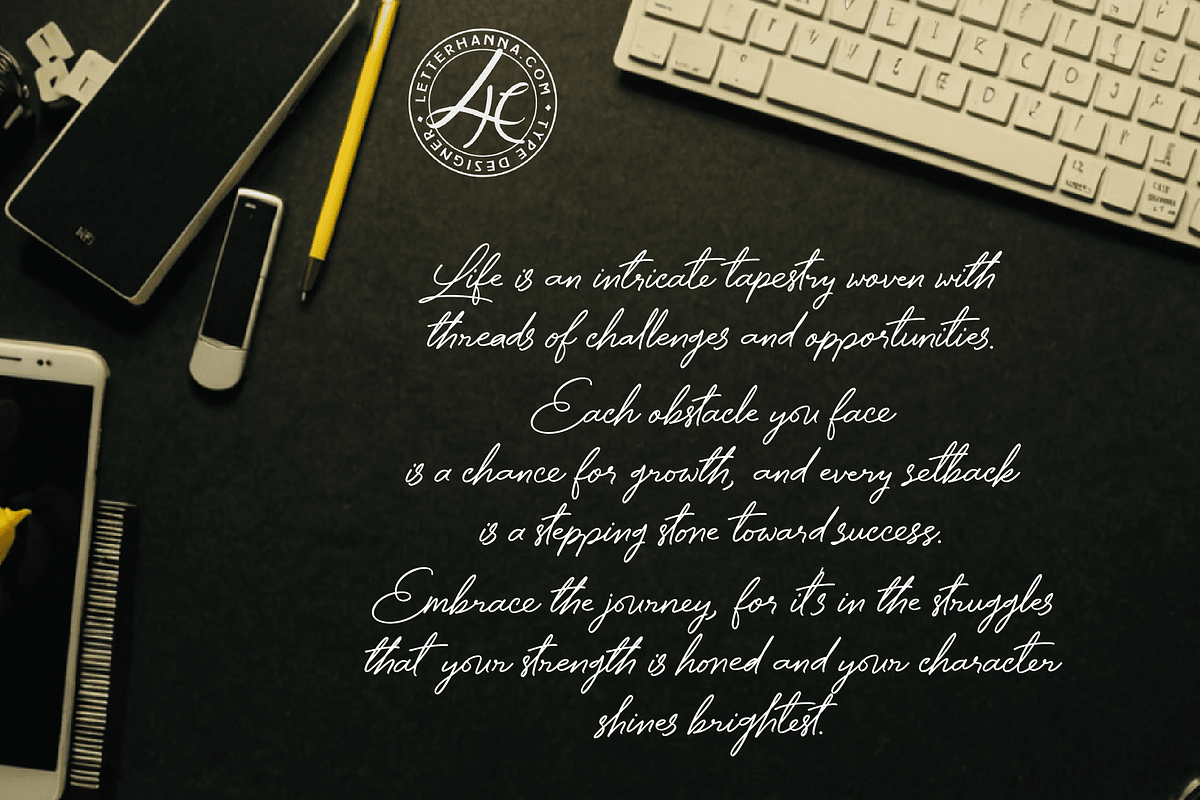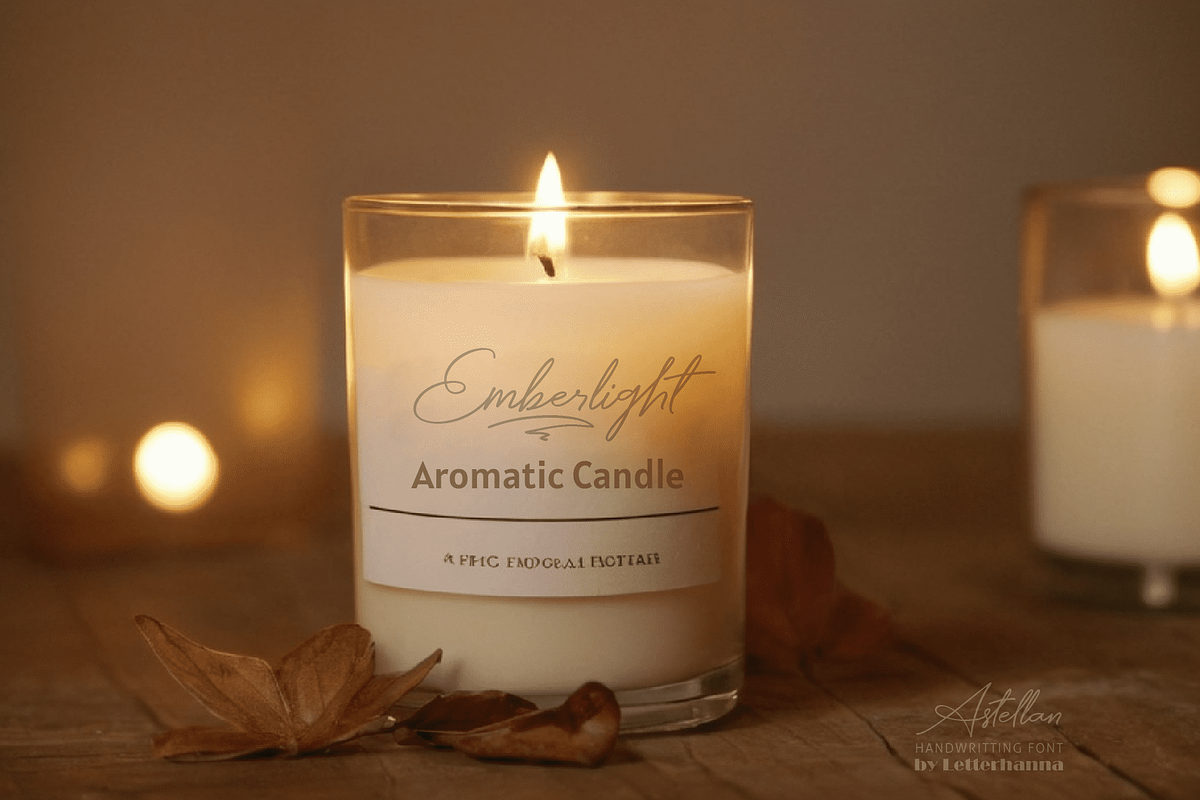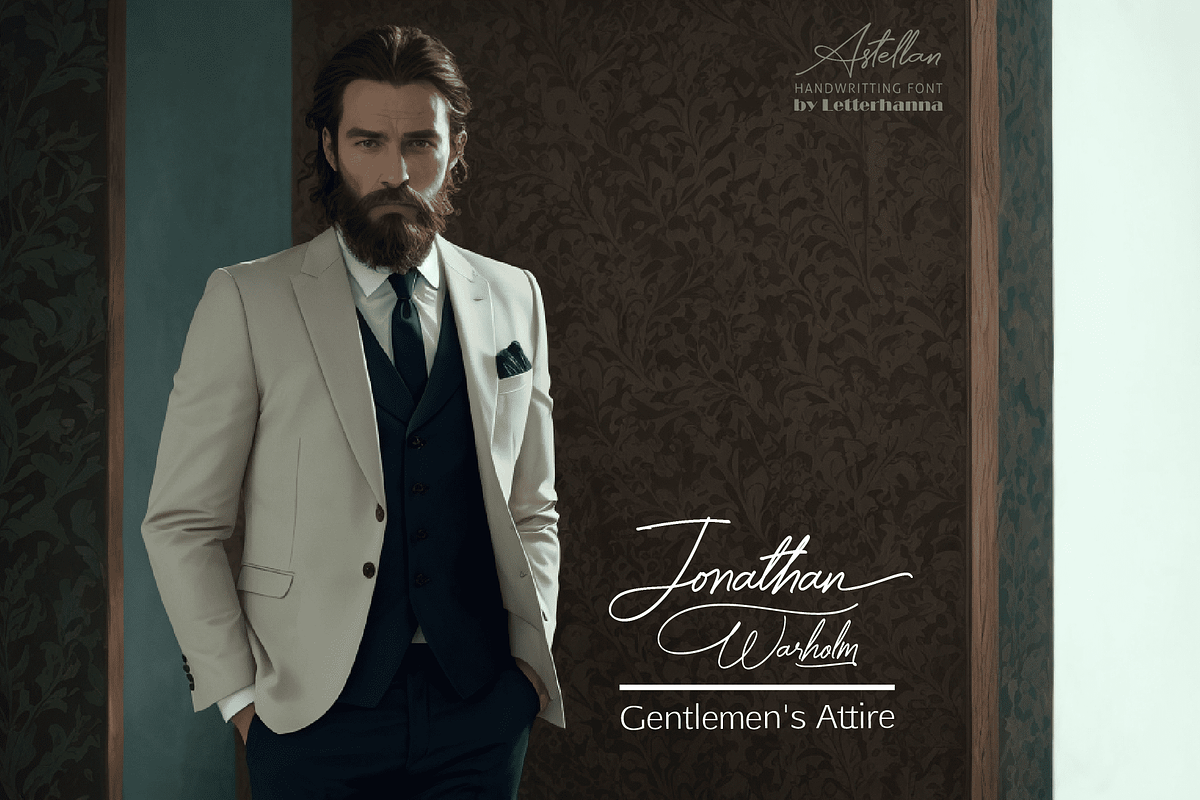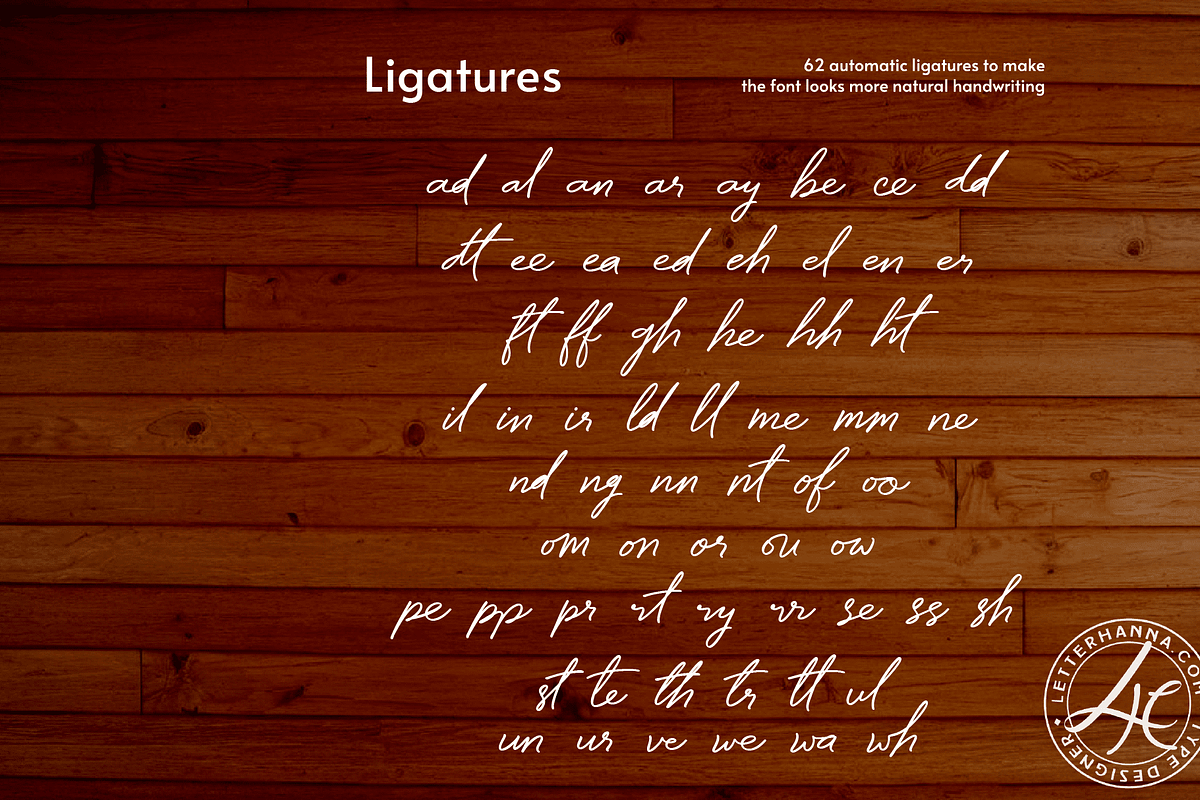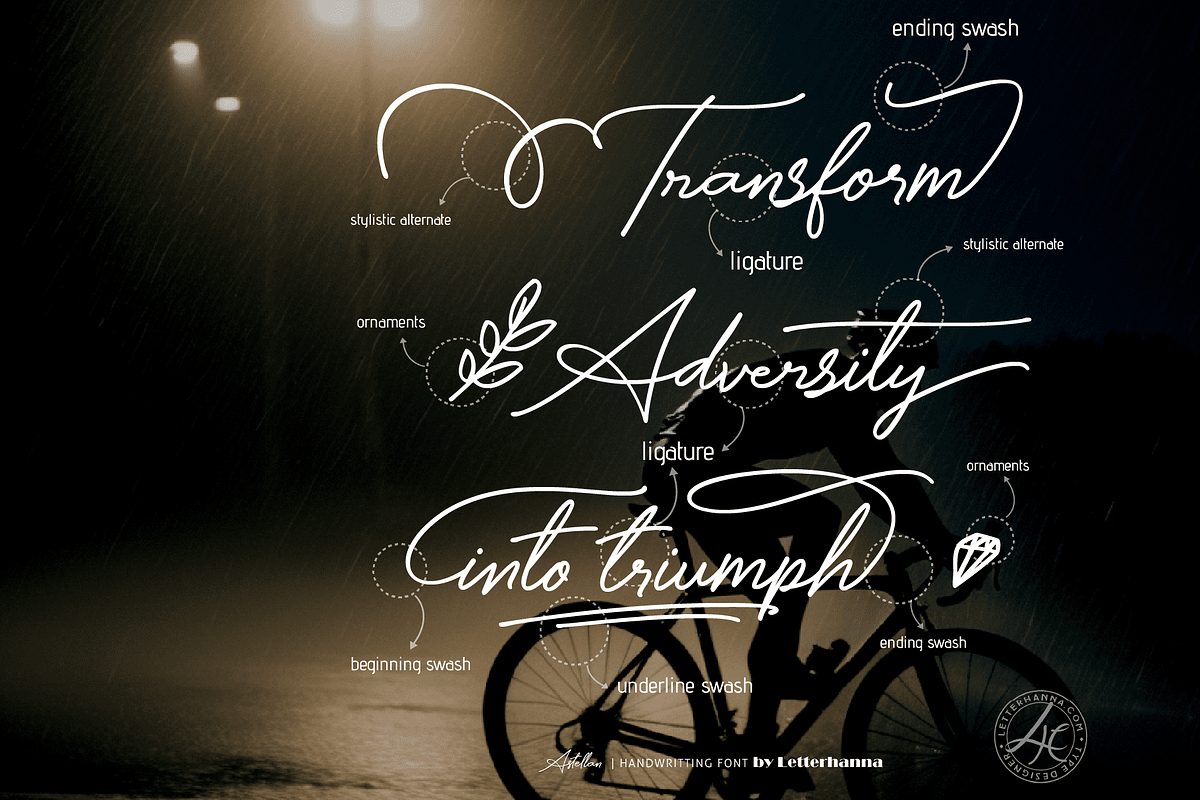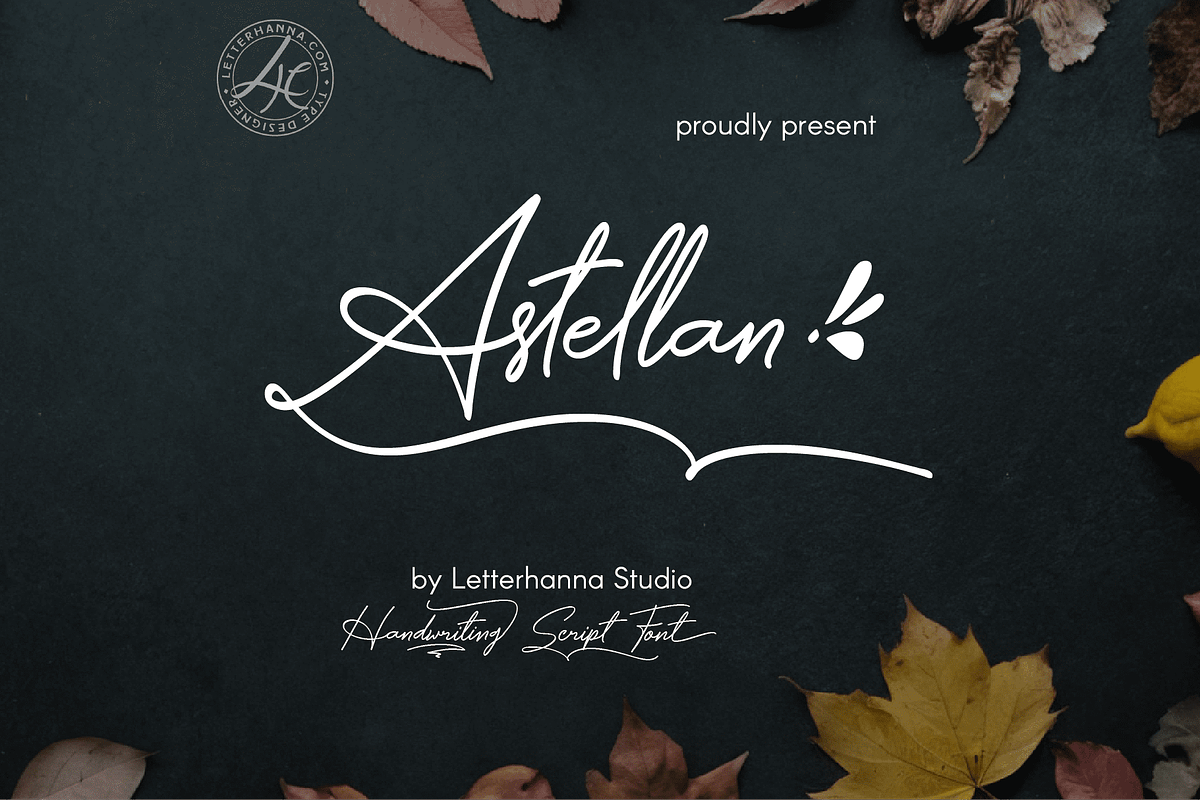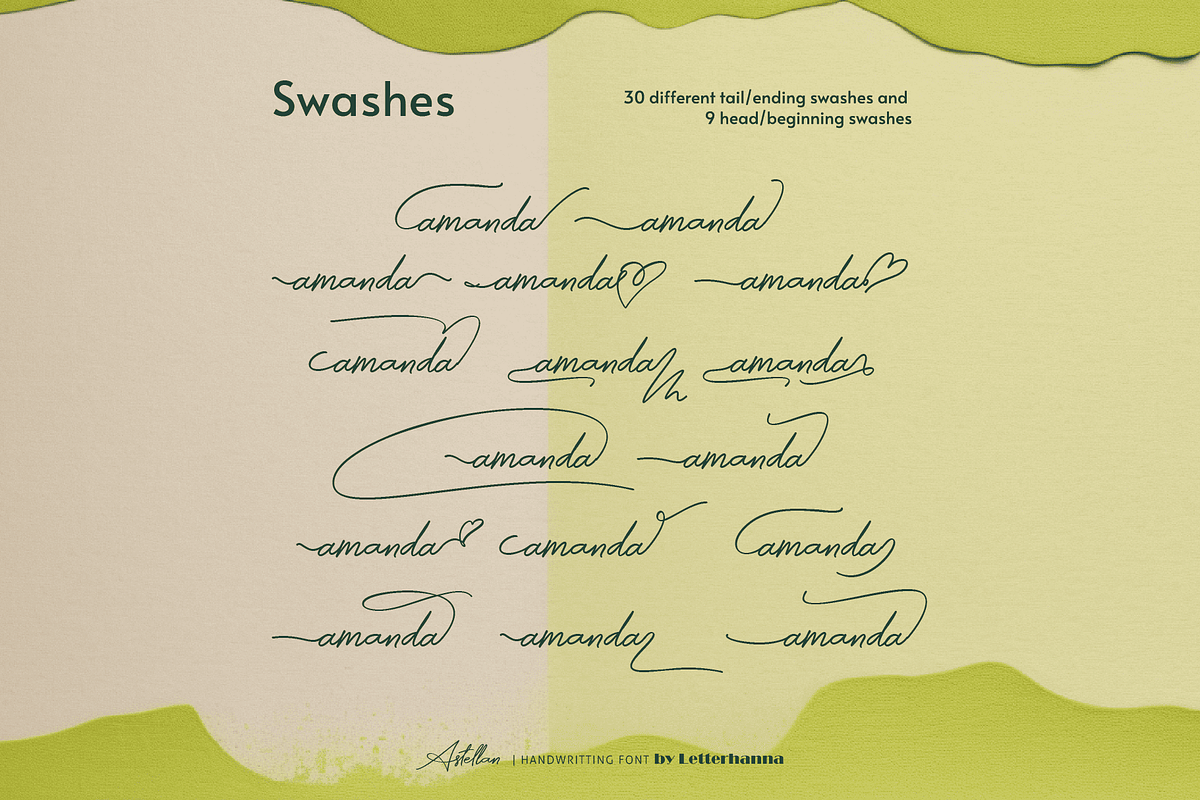
Astellan Font
Introduce a touch of elegance and personality to your writing with Astellan, our newest signature handwritten script font. Inspired by the power of storytelling, Astellan's graceful curves and subtle variations capture the essence of heartfelt expression.
Effortlessly enhance invitations, quotes, branding materials, and creative projects with Astellan's undeniable charm. Each letter dances across the page, mimicking the natural flow of penmanship, adding a touch of authenticity to your work.
Astellan is perfect for Crafting heartfelt letters and invitations, Adding a personal touch to branding materials, Creating captivating quotes and social media graphics, Expressing yourself in creative writing projects.
Let Astellan guide your hand and unlock the storyteller within.
Easy Access to Glyphs and Swashes Gain easy access to all alternate glyphs, swashes, ornaments, and underlines by simply using ligatures. You can try them out yourself in the font preview tool on our website, letterhanna.com.
Accessing Stylistic Alternates Stylistic alternates can be accessed by typing a plus symbol "+" in front of the original letter. For example, type "+A" to get the stylistic alternate of the capital letter A.
Accessing Swashes and Ornaments
Underline Swashes: Use a hyphen symbol "-" followed by a number between 1 and 30. For example, type "-3", "-22", or "-17" to get various underline swashes.
Head/Beginning Swashes: Use a dollar sign "$" followed by a number between 1 and 9. For example, type "$2" or "$8" to get different head/beginning swashes.
Tail/Ending Swashes: Use a percent sign "%" followed by a number between 1 and 30. For example, type "%3" or "%15" to get various tail/ending swashes.
Ornaments: Use an "at" symbol "@" followed by a number between 1 and 26. For example, type "@4" or "@13" to get different ornaments.
Uppercase and lowercase letters
Numbers and punctuation marks
Beginning and ending swashes
Underline swashes
Stylistic alternates
Ornaments
Easy access to swashes using ligatures